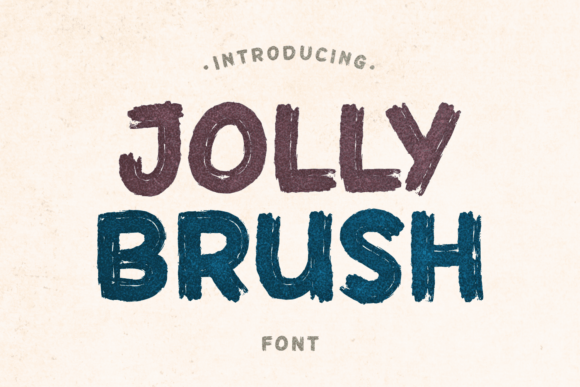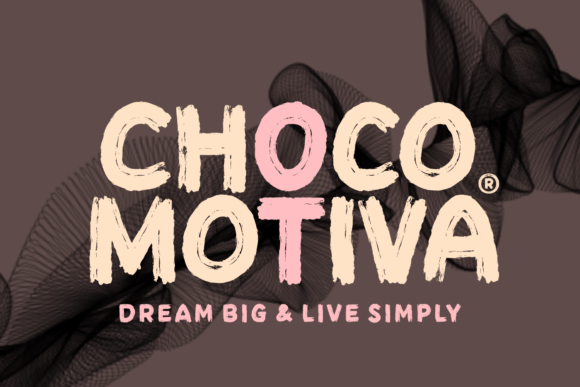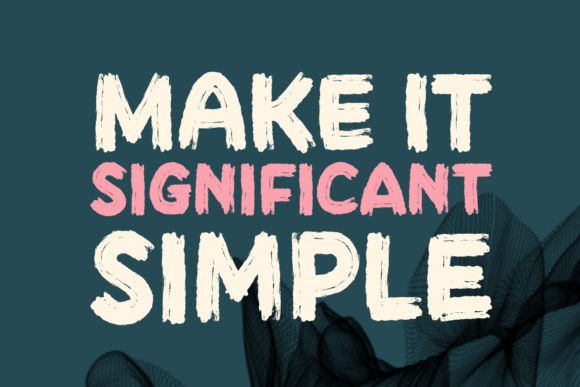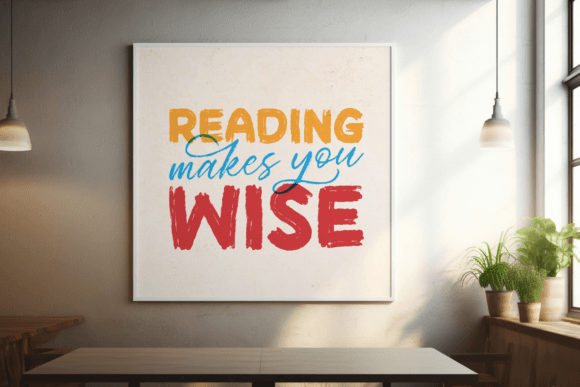
Jolly Brush Font: A Playful & Cute Display Font for Crafts & DIY!
About the Jolly Brush Font
Step up your design game with Jolly Brush Font, a font that exudes confidence and style. Jolly Brush is an exquisite brush-style font that beautifully merges artistry and precision. Crafted with a brush, each stroke of this font exudes a unique allure, resulting in clean and highly legible text. Its versatility makes it the perfect typography for a range of projects such as book covers, magazines, website design, and logotypes. Jolly Brush also excels in enhancing quotes and titles with its appealing aesthetic, giving your work an inviting boldness that is sure to catch the eye. Embrace Jolly Brush, the font which puts your design at the forefront.
Jolly Brush Font Usage Examples
Jolly Brush Font Example